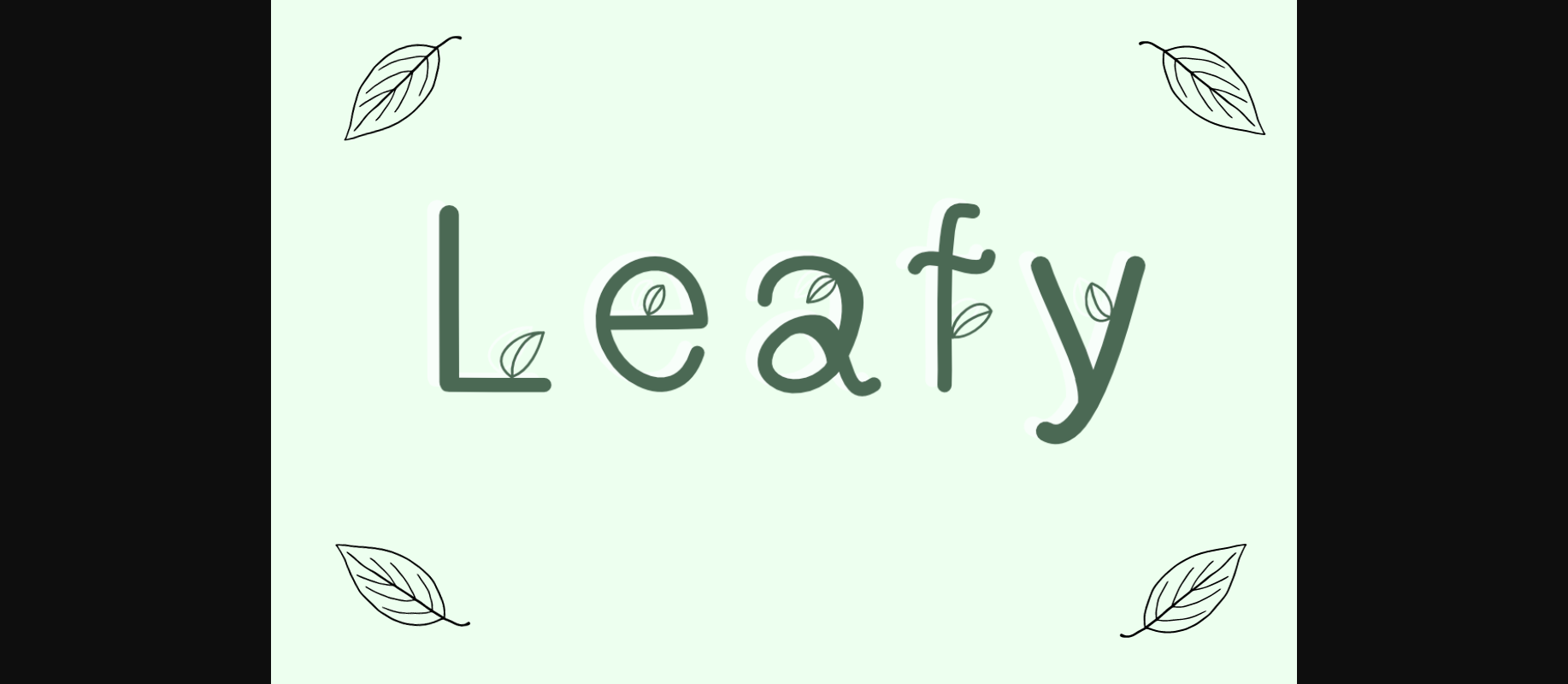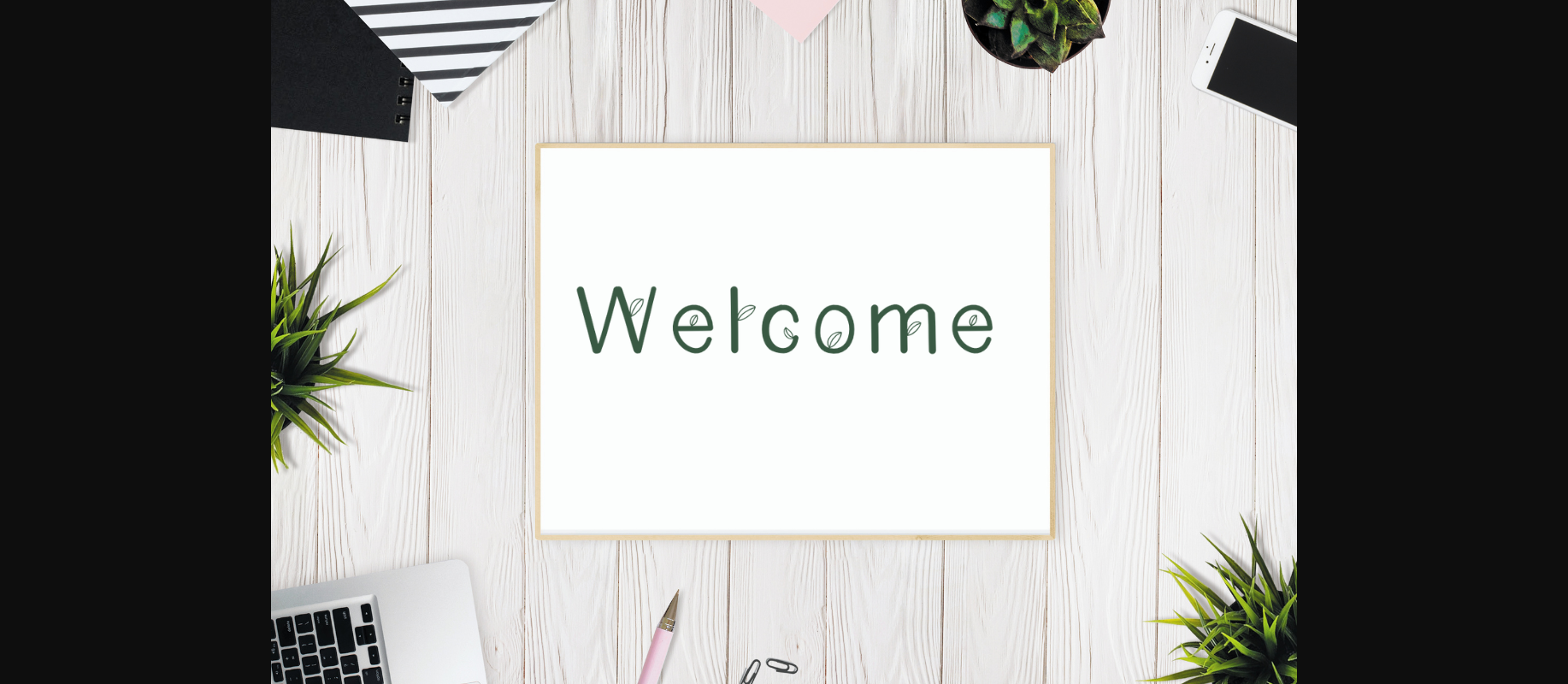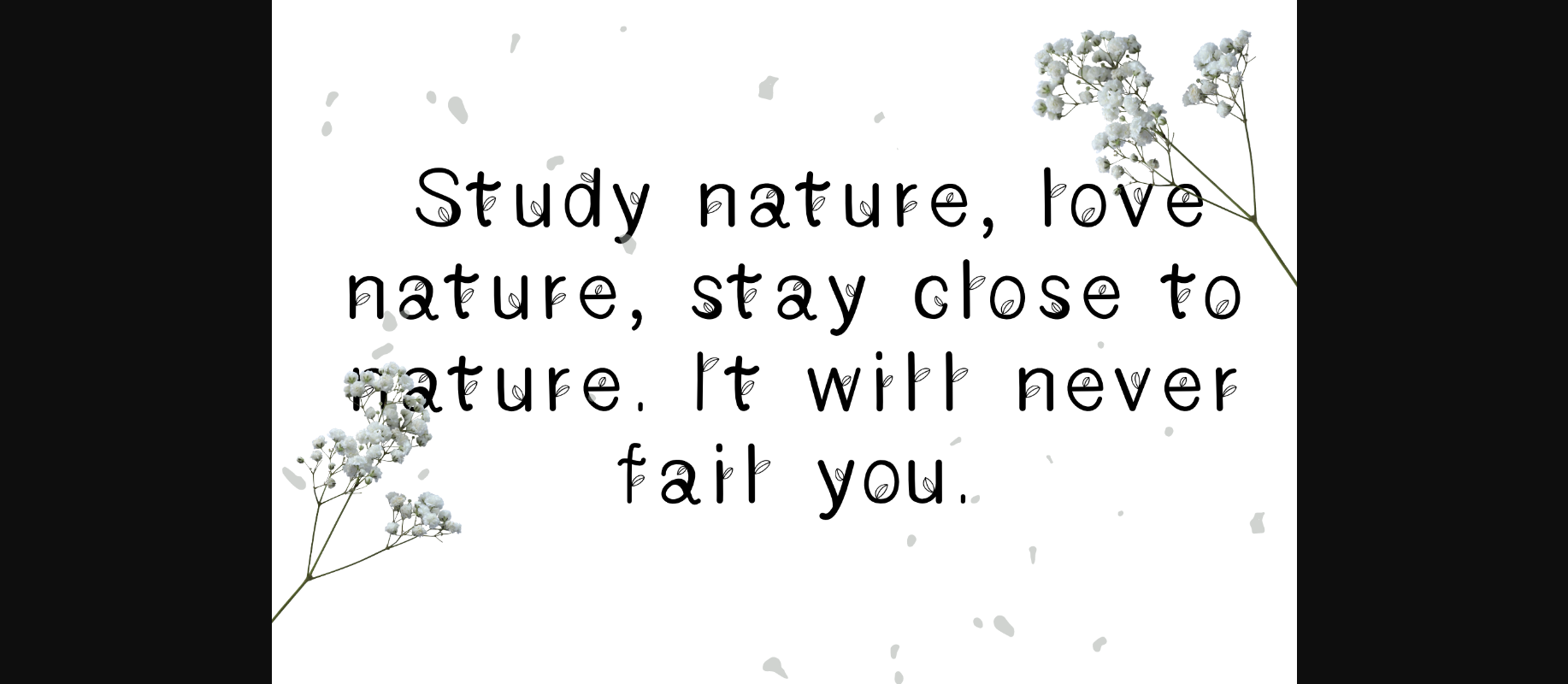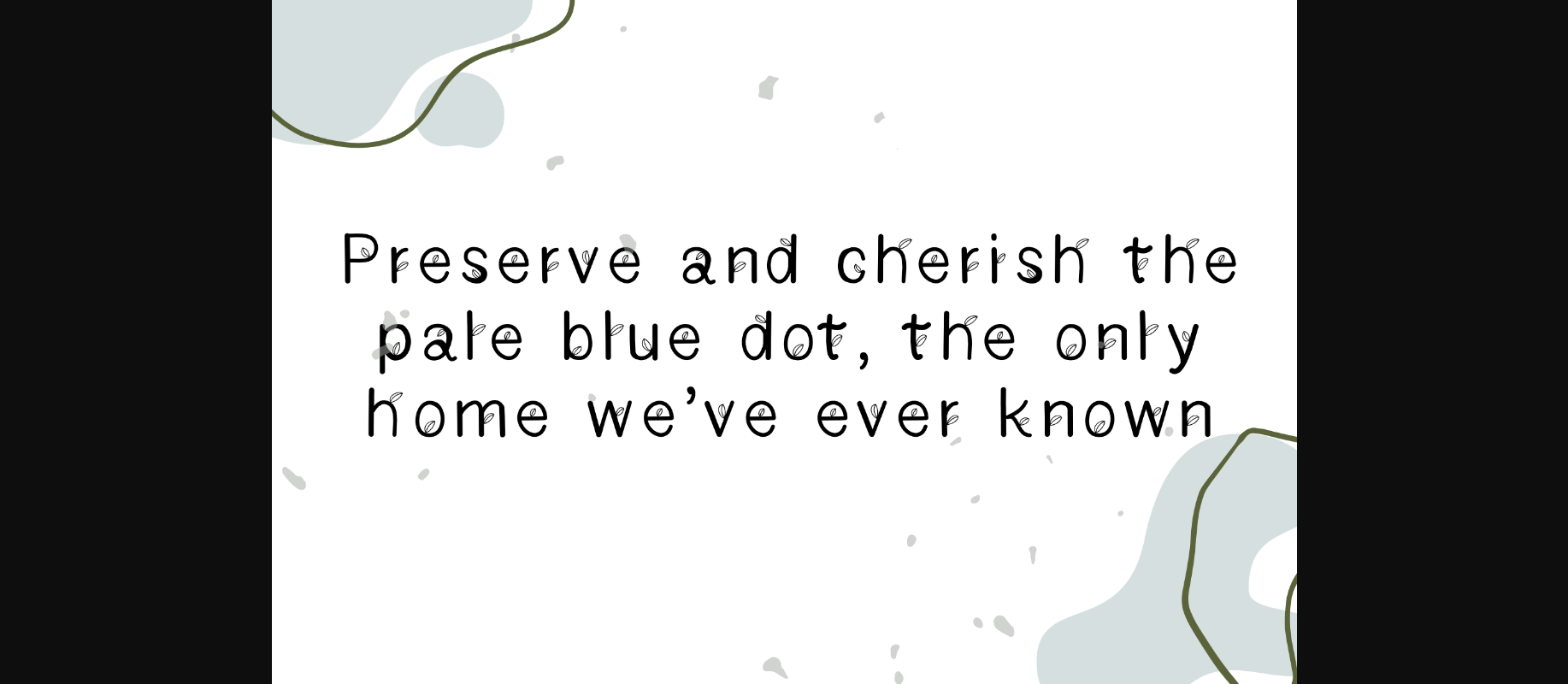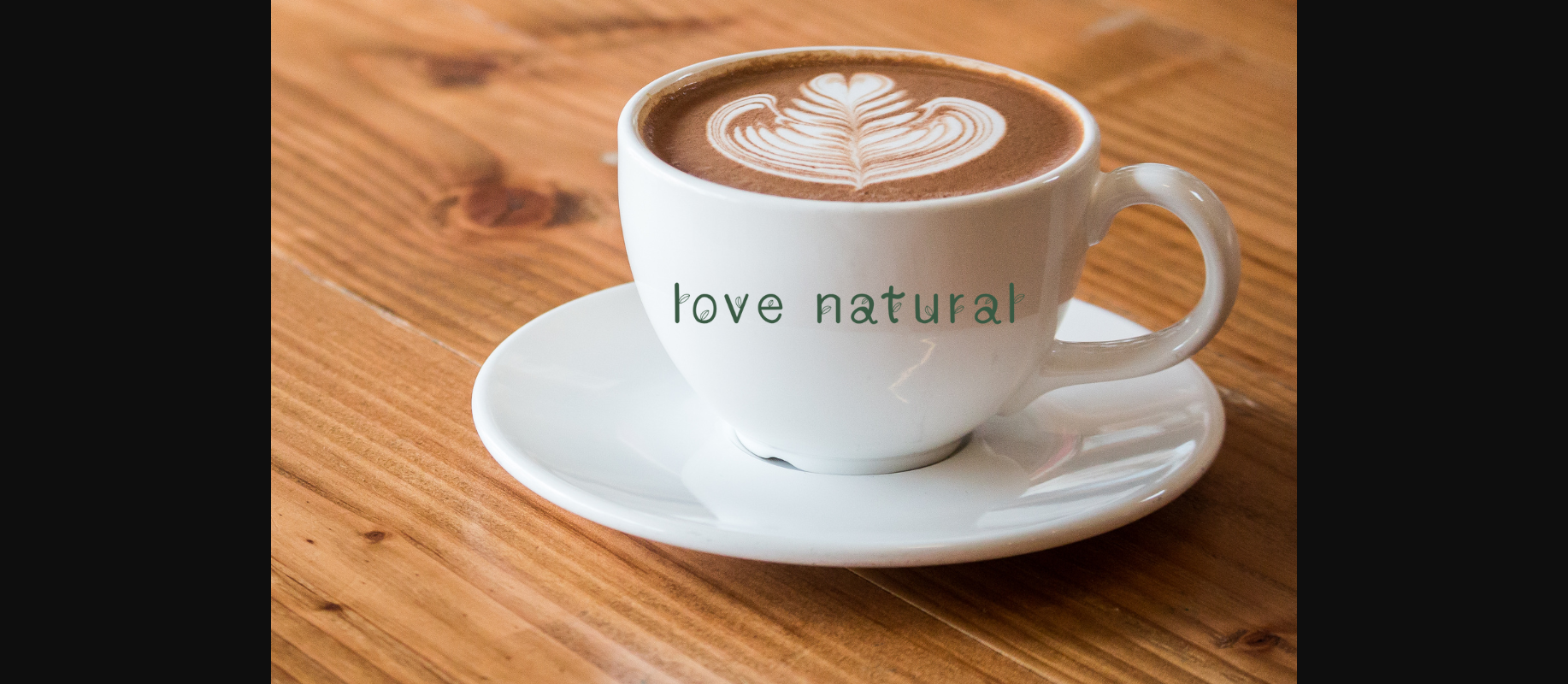
Leafy is a lovely decorative font with characters decorated with cute leaf accents. It is great for your beautiful creations related to nature, love, etc.